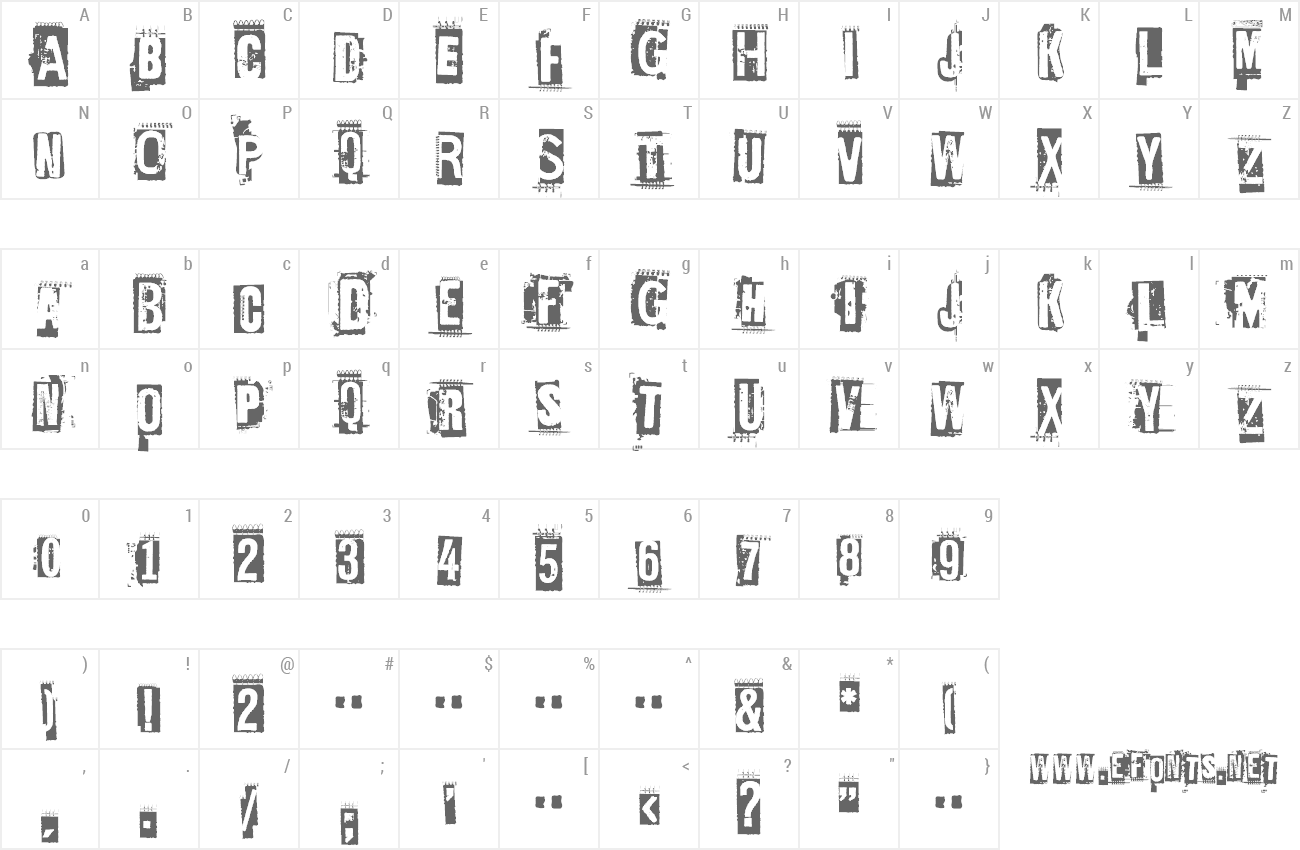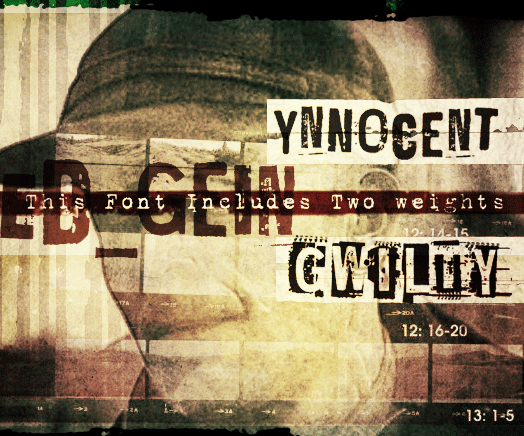
++++++++++++++++ »Ed_Gein« is informal grunge font, available for free download and use. Includes two weights: Ynnocent + Gwilty. Has Uppercase Alphabet, Lowercase Alphabet, Numbers 0-9. Please donate me if you like this font. ++++++++++++++++ |